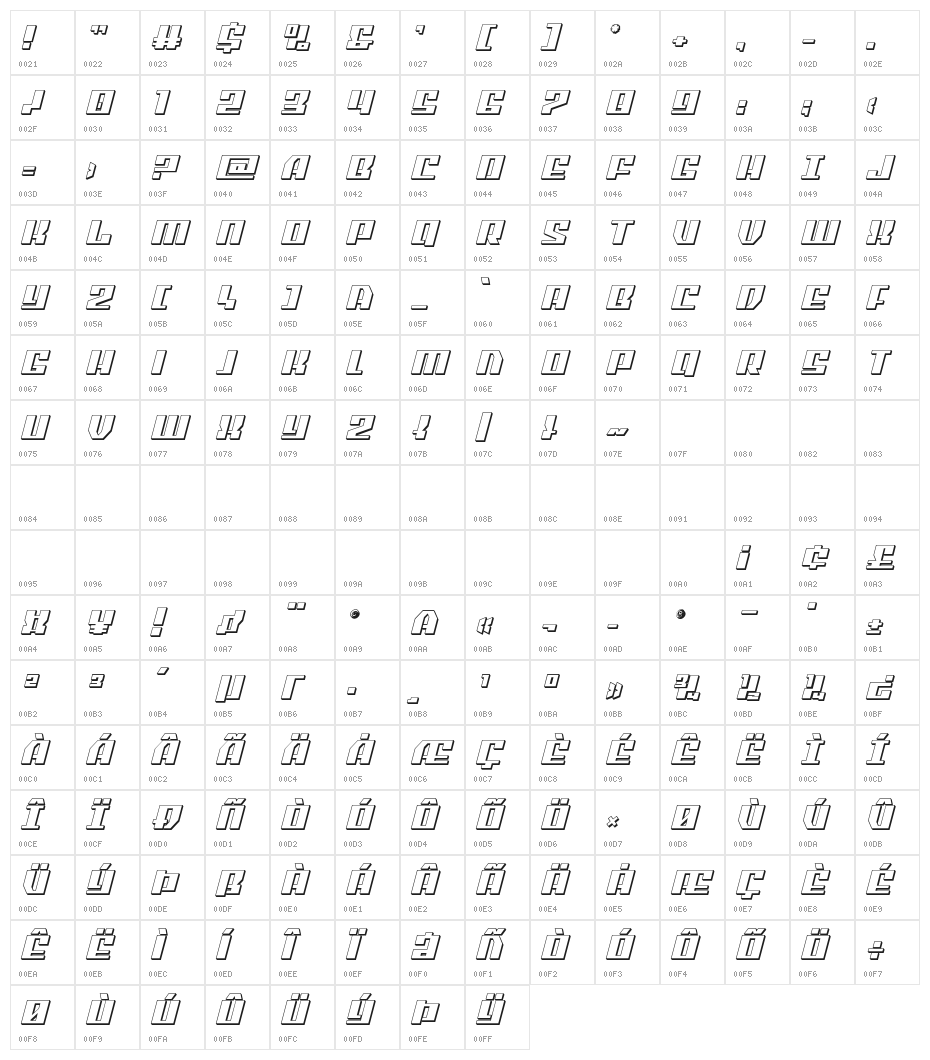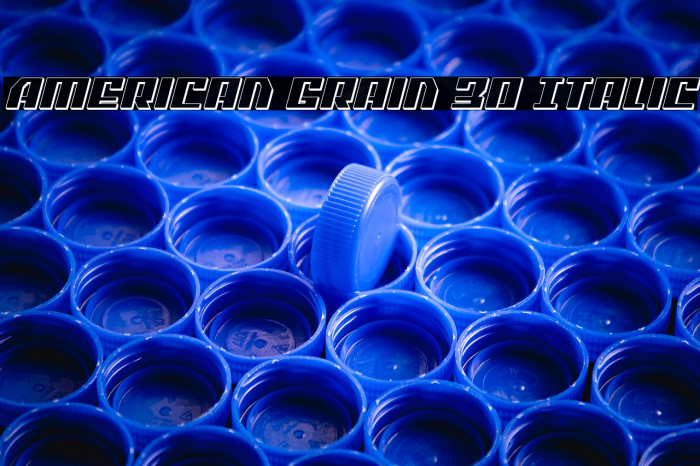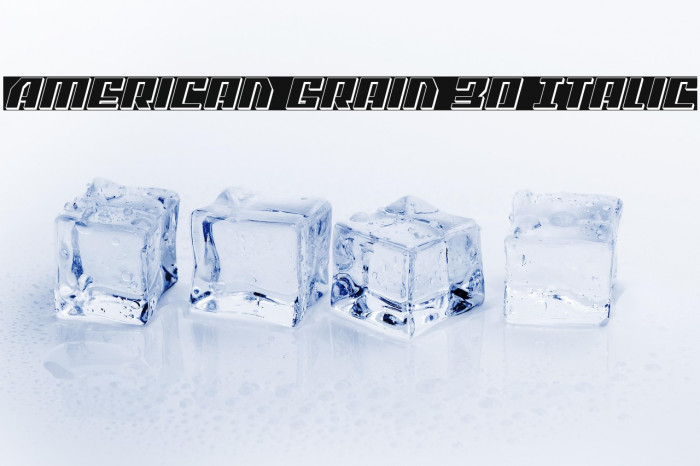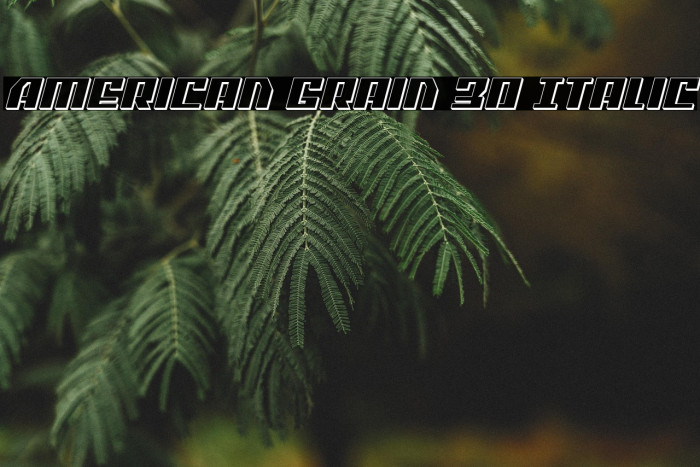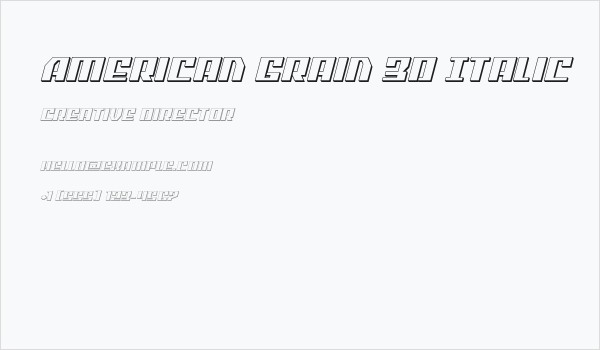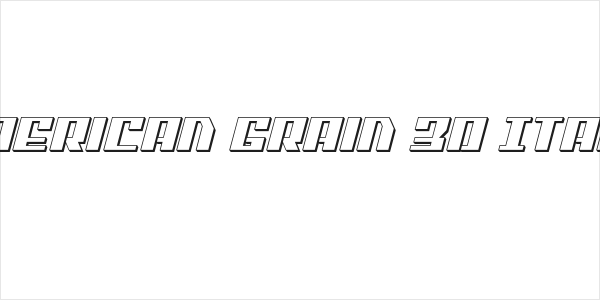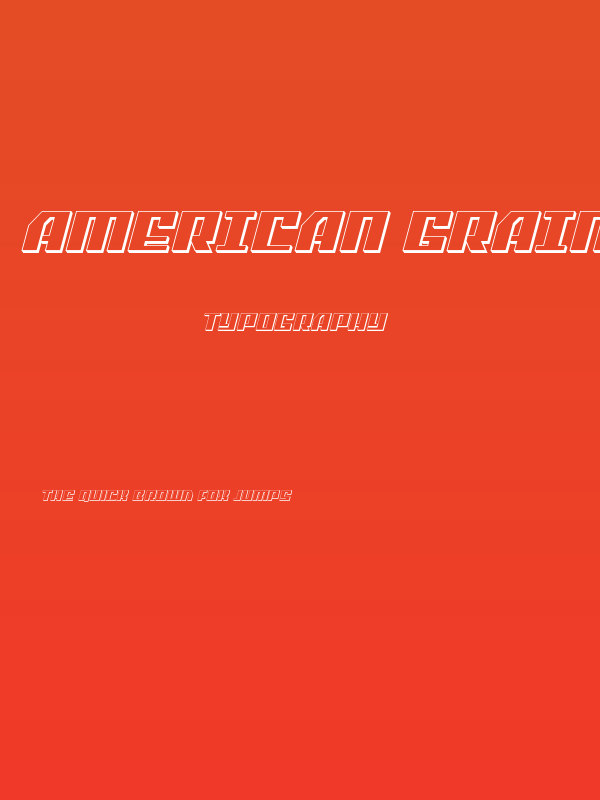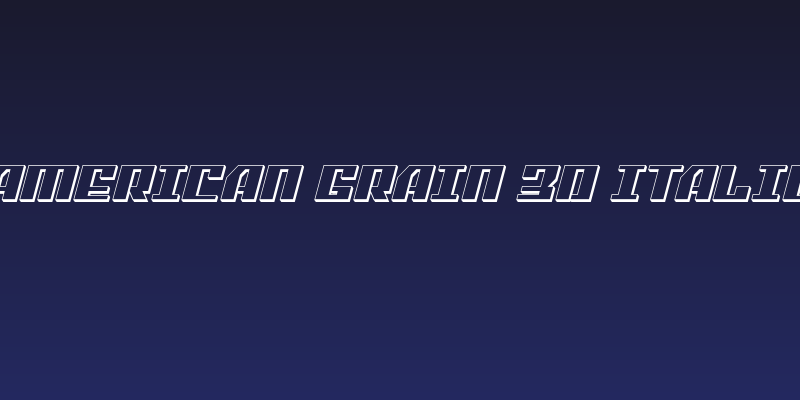
American Grain 3D Italic Font
American Grain 3D Italic Description
This font features a bold, three-dimensional design with a distinct italic slant, giving it a dynamic and modern appearance. The characters are outlined, creating a striking visual effect that enhances readability while maintaining a unique style. The uppercase and lowercase letters share a consistent geometric structure, with sharp angles and clean lines. Numbers and special characters are designed to match the overall aesthetic, ensuring uniformity across all elements. This font's bold presence makes it suitable for attention-grabbing designs.
| Proposed Projects | Ideal for posters, logos, video game titles, and any project requiring a bold, futuristic look. |